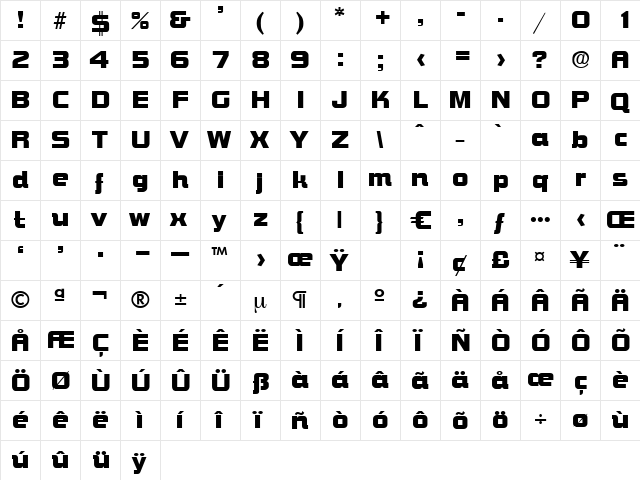
Lansing Regular
Design Context for Lansing Typeface
Lansing offers clean, dependable letterforms without strong stylistic allegiance, making it a practical choice for designers who need flexibility.